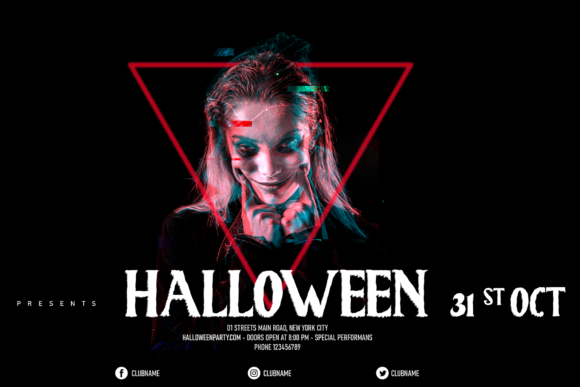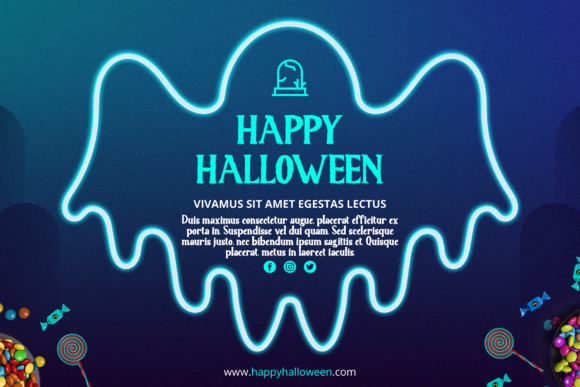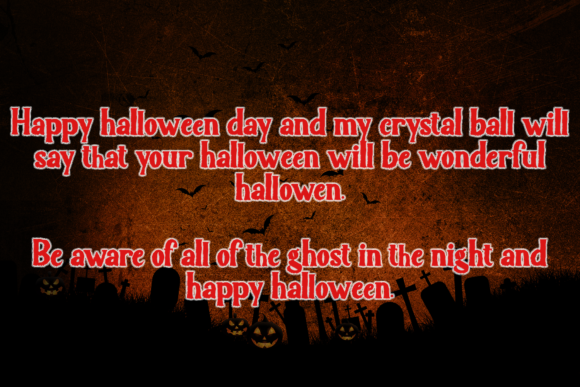
Introduction to Scary Light Font
Scary Light celebrates all things creepy: It’s the ideal display font for any spooky Halloween-themed creative project.
Key Features of Scary Light Font
Why Choose Scary Light Font?